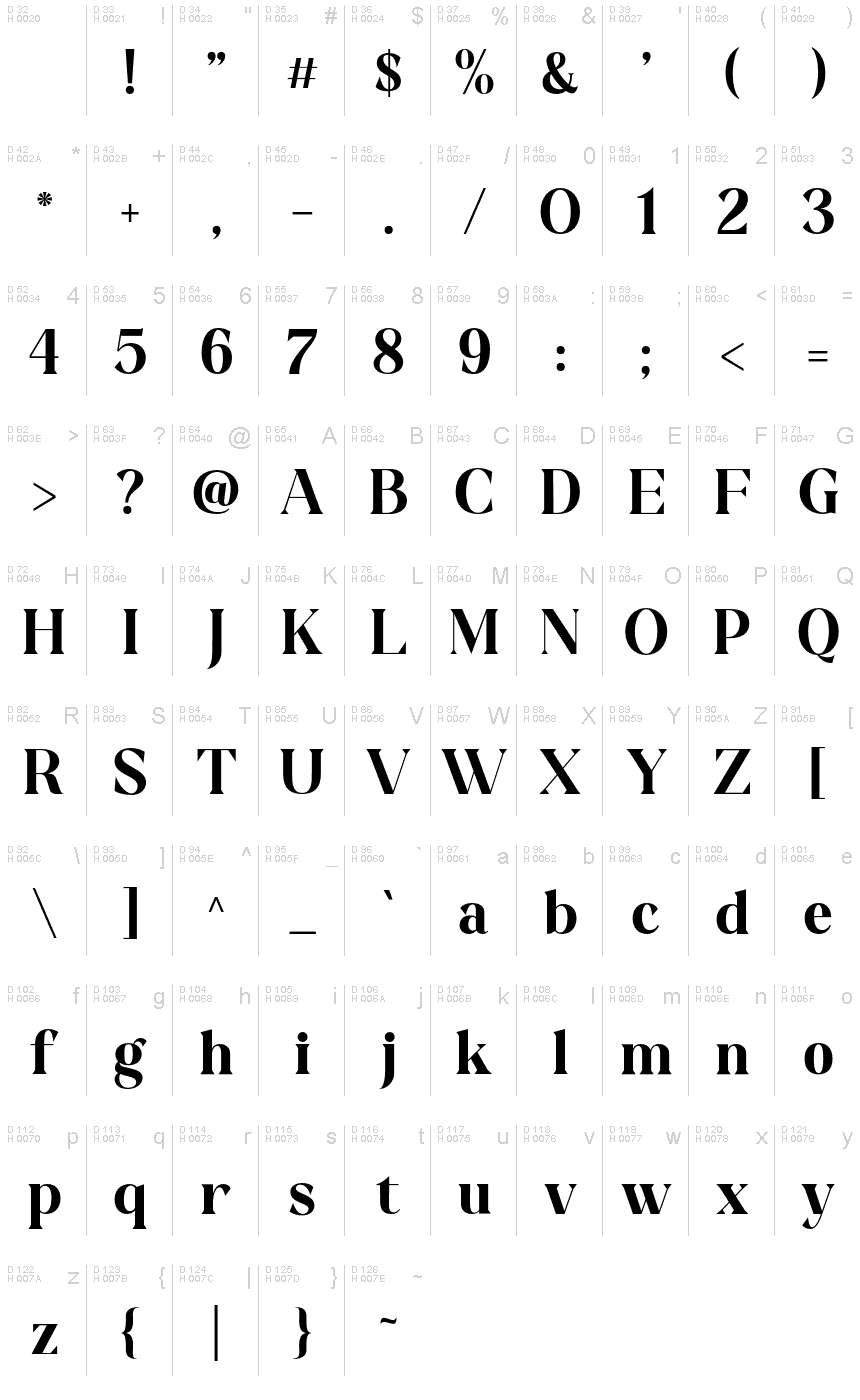
ChiaraFeragni
Chiara Feragni, a bold serif font by Letterflow, commands attention and exudes confidence. Its elegant curves and strong lines make it perfect for luxury brands and high-end fashion magazines.
With its timeless appeal, Chiara Feragni adds a touch of sophistication to wedding invitations, creating an unforgettable first impression. This versatile typeface also lends itself well to editorial design, enhancing the impact of newspaper headlines or magazine covers.
Whether it's for branding projects or editorial layouts, Chiara Feragni is a font that demands to be noticed.